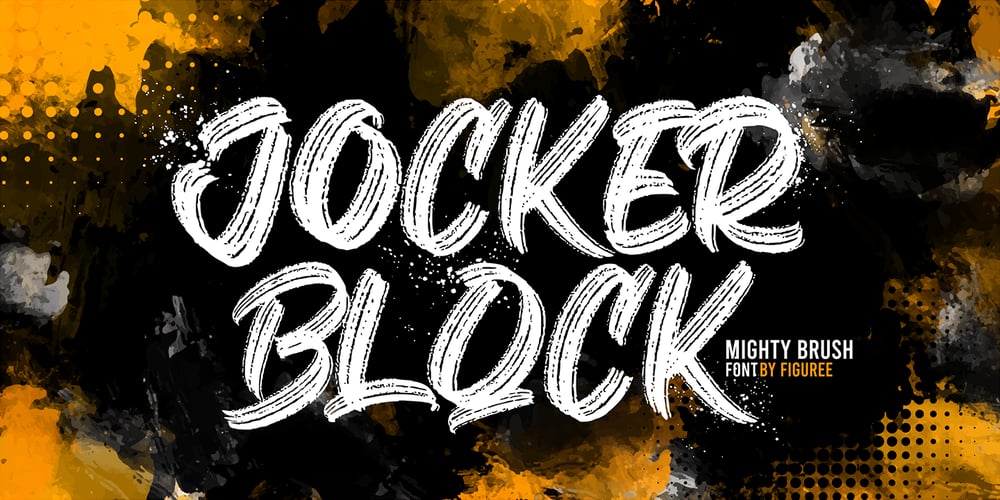
Jocker Block Font Family was designed by Icep Anwar Fadhil and published by Figuree Studio. Jocker Block contains 1 styles and family package options. Introducing Jocker Block!Jocker Block is natural and strong hand-drawn brush font that combines attractive curves with a fresh urban edge; delivering a stylish brush font that is guaranteed to add an eye-catching appeal to your logo designs, brand imagery, handwritten quotes, product packaging, merchandise, social media post, or website font.Features: All Caps Font Support for MAC or PC PUA Encoded Versatile for branding, headline, or printing product Detailed dry brush markers I hope you enjoy this font. If you have questions, don’t hesitate to give me a message ๐ Thank You!